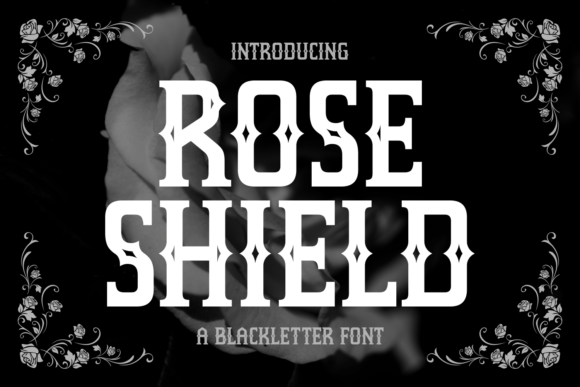
Introducing Rose Shield Font, the ultimate choice for those seeking a remarkable and captivating typography experience. This thick and striking blackletter font will leave a lasting impression on your audience, making it the perfect choice for branding projects, advertisements, posters, and even t-shirts.
Crafted by the talented team at Creative Fabrica Fonts, Rose Shield Font is not your ordinary typeface. With its unique embellishments and decorative elements, it takes typography to a whole new level of elegance and sophistication. Each character is meticulously designed to stand out and grab attention, making your text truly unforgettable.
When it comes to creating a strong visual impact, Rose Shield Font excels in every aspect. Its bold and powerful strokes command attention and convey a sense of authority and strength. Whether you're creating a blog header, an eye-catching logo, or a stunning headline, this font allows you to effortlessly stand out from the crowd.
But Rose Shield Font is not just about aesthetics; it is also incredibly versatile and adaptable. Its timeless blackletter style adds a touch of tradition and heritage to any design, making it suitable for various themes and industries. Whether you're working on a vintage-inspired project, a modern branding campaign, or anything in between, this font effortlessly adapts to your creative vision.
What truly sets Rose Shield Font apart is its ability to evoke emotions and create a connection with your audience. The combination of its bold presence and intricate details creates a sense of intrigue and curiosity. It invites your viewers to delve deeper into your content, ensuring that they are captivated from the first glance.
In conclusion, Rose Shield Font is not just a font; it is a powerful tool that allows you to express your creativity and captivate your audience with ease. Its striking design, versatility, and ability to evoke emotions make it a must-have for anyone looking to make a bold statement. Don't settle for ordinary typography – choose Rose Shield Font and take your designs to extraordinary heights.